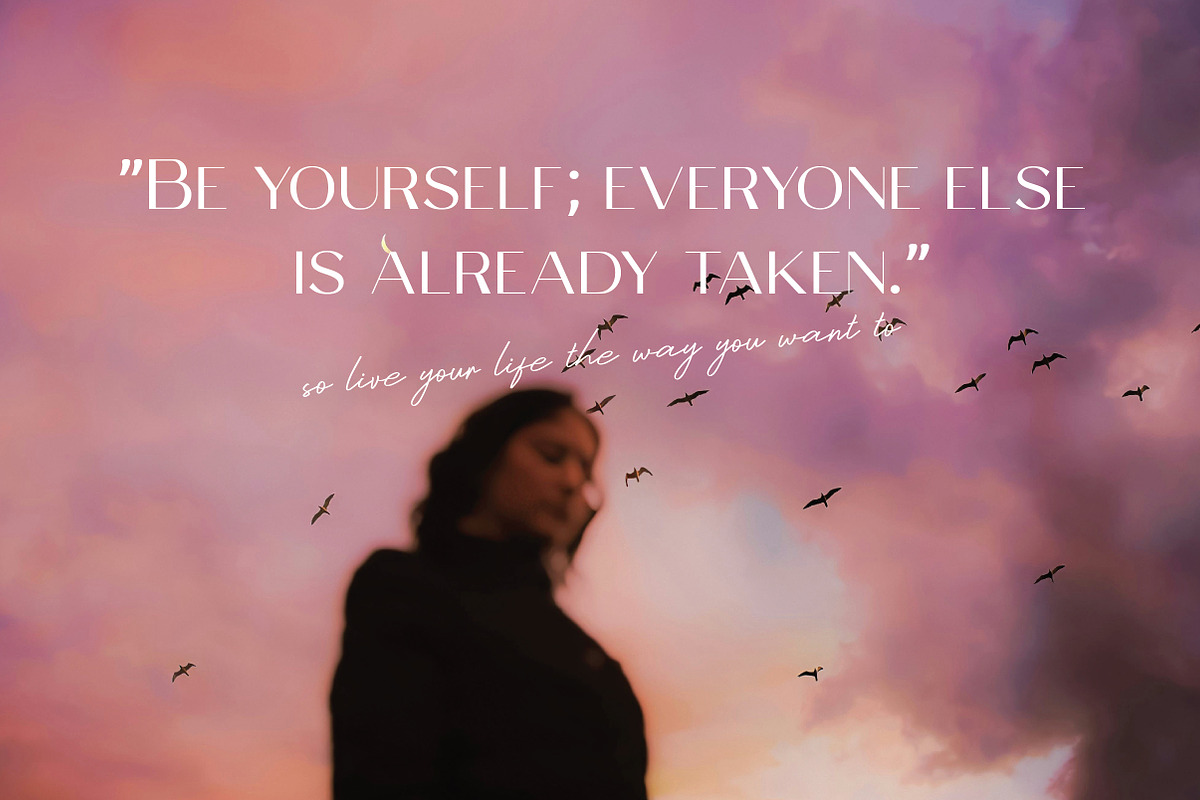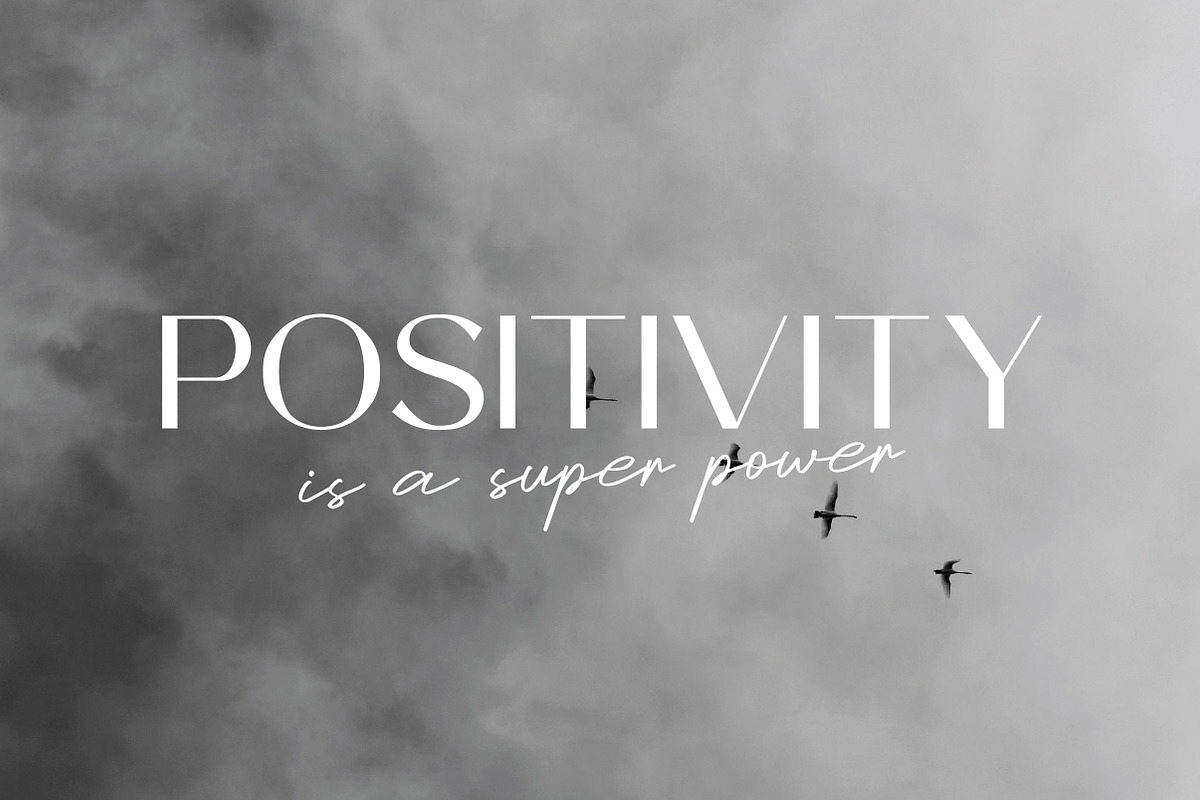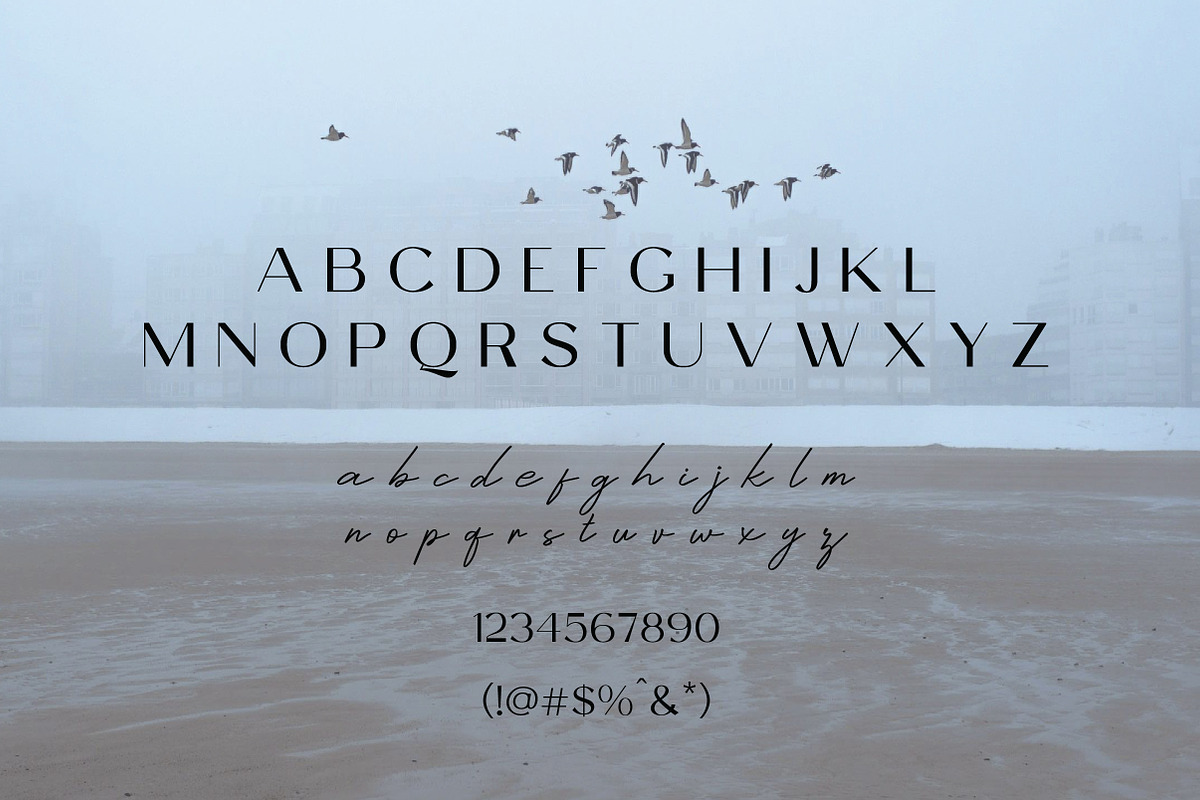
Lexoro | Modern Sans Serif Font
Lexoro is a stylish and versatile sans serif font designed for modern branding and creative projects. With its clean lines and balanced proportions, Lexoro brings a professional yet contemporary feel to logos, headlines, packaging, web design, and more.
This font combines structure and clarity, making it a great choice for both digital and print use. Whether you're working on minimalist branding or bold editorial layouts, Lexoro adapts seamlessly across a wide range of design applications.
Lexoro is built for designers who value clean professionalism and refined visual presence in their work.